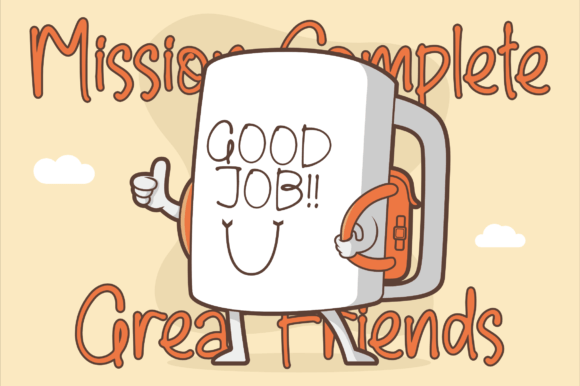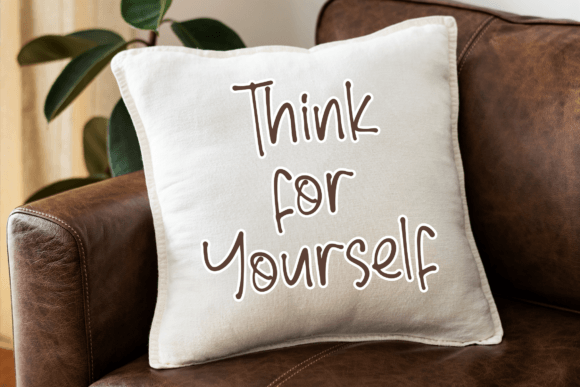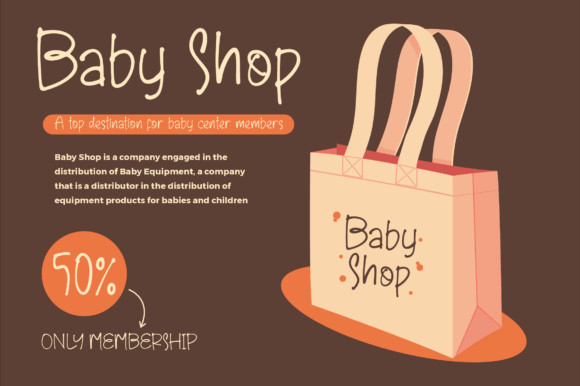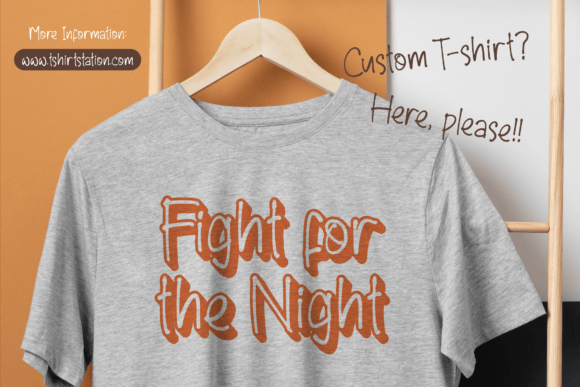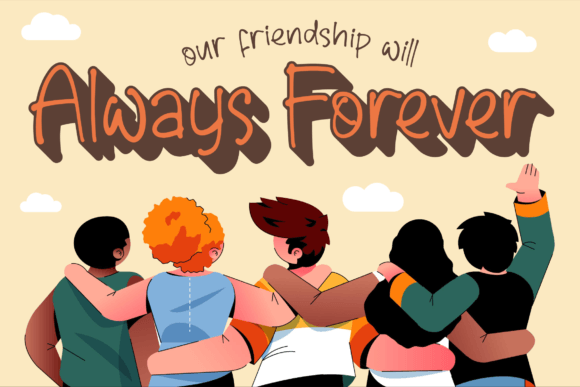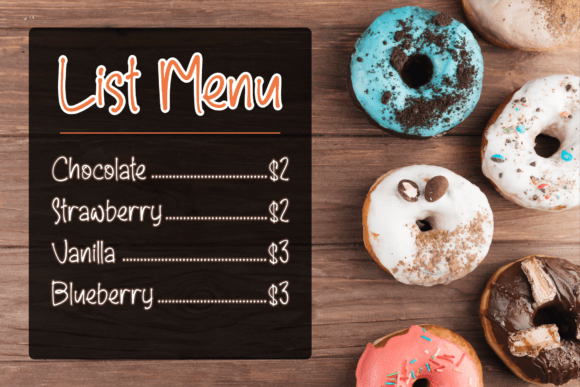
Introduction to Earlybird Playful Font Font
Fonts play a crucial role in design, and the Earlybird Playful Font font is a typeface that brings both character and versatility to any project. Whether you’re working on a branding project, a website, or a print design, the Earlybird Playful Font font offers a unique style that can elevate your work.
Earlybird Playful is a lovely and timeless handwritten font.
It is the best choice for creating eye catching logos, branding and quotes Every letter has a unique and beautiful touch, which will make your design come alive.
Key Features of Earlybird Playful Font Font
Why Choose Earlybird Playful Font Font?
The Earlybird Playful Font font is more than just a typeface – it’s a design tool that helps you communicate your message with style and clarity. Its unique character set and versatile design make it suitable for a wide range of applications, from elegant invitations to bold headlines.
With its carefully crafted letterforms and balanced proportions, the Earlybird Playful Font font ensures readability and visual appeal across all mediums.
What makes Earlybird Playful Font font special?
The Earlybird Playful Font font stands out with its unique design, exceptional readability, and versatility across various design applications.